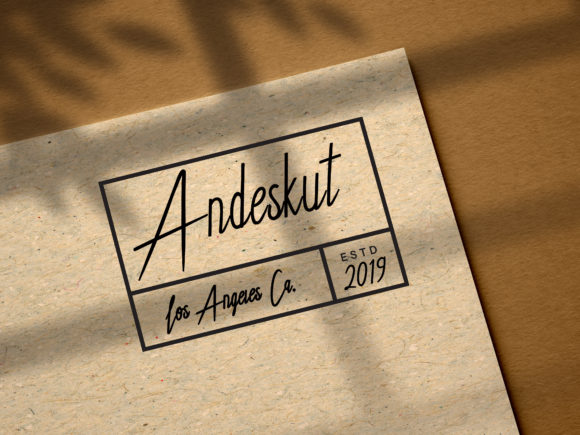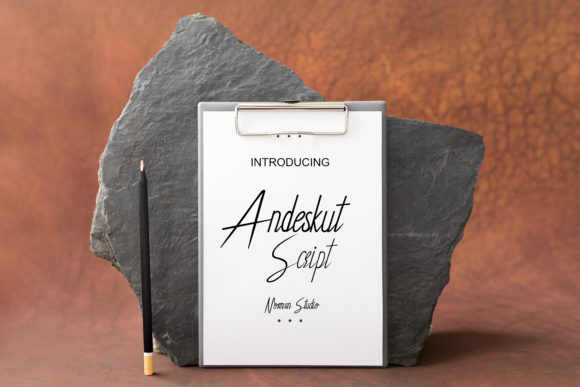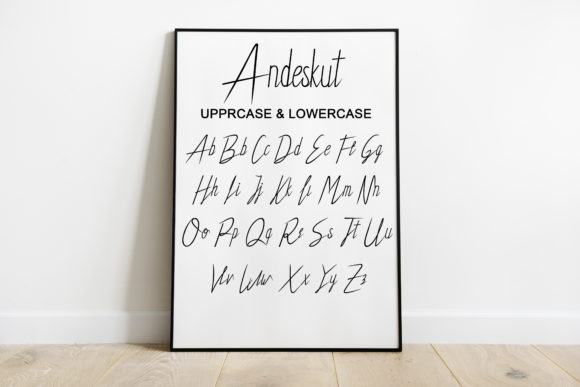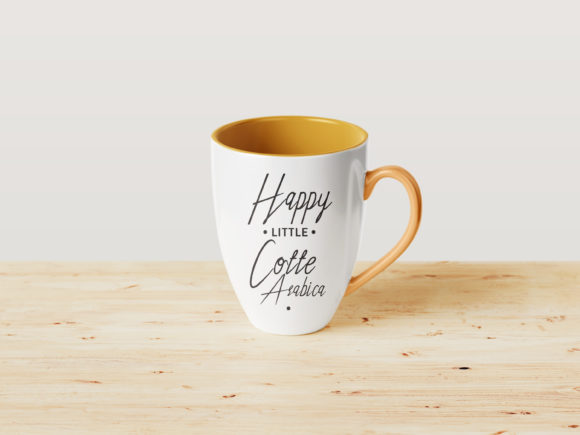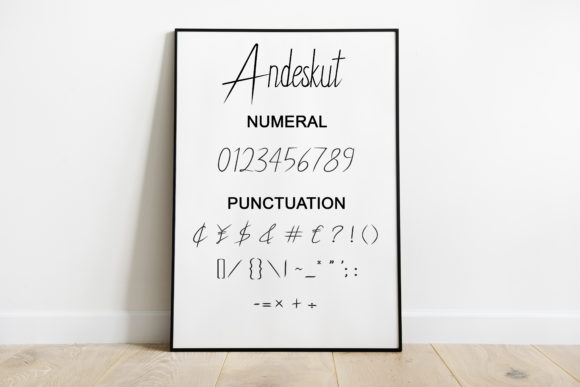
Introduction to Andeskut Font
Andeskut feels equally charming and elegant.
Andeskut Font offers exceptional quality and versatility, making it a valuable addition to your design toolkit. Whether you’re creating for personal projects or commercial use, Andeskut Font delivers professional results.